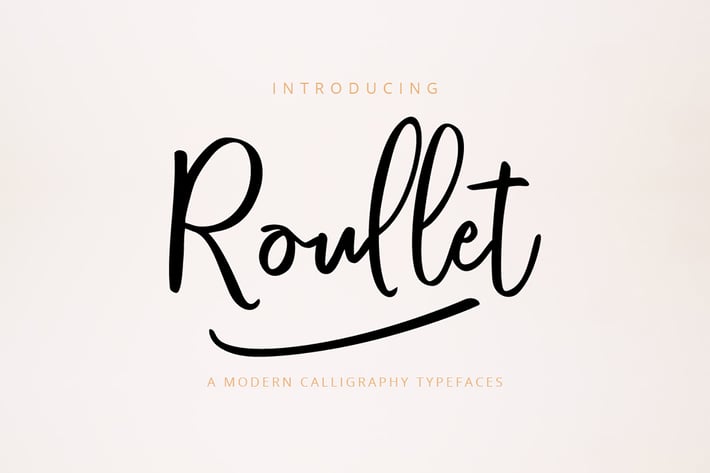
Roullet Fonts
About this font
Roullet Fonts is an handwriting style. For designers, instagramers, bloggers, youtubers, fashion lovers or somebody who Loves Fresh design. Roullet Fonts suitable for any modern design such as for ad banner, modern card, invitation, announcement, seasonal design, social media promotion, web design, branding and logo stylist and many more.